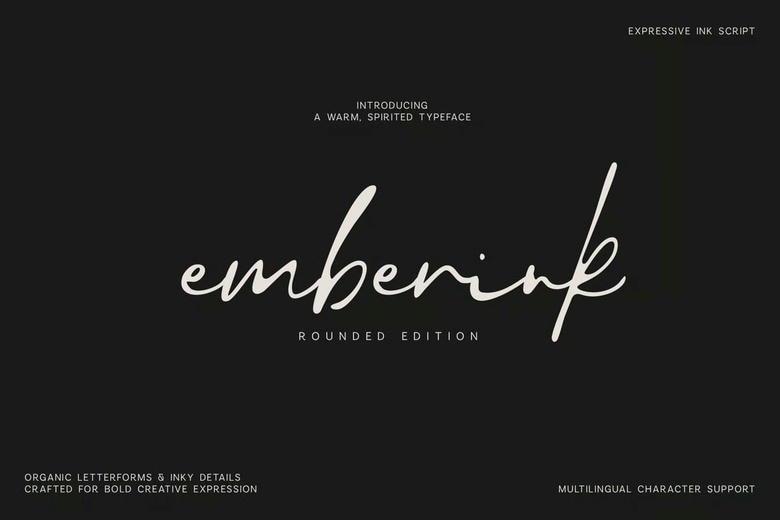
Emberink Font
Emberink Rounded is a handwritten script font with smooth edges and natural shapes, creating a warm and modern look. Its rounded strokes add a stylish touch to any project.
This font works well for signature logos, personal branding, product packaging, labels, posters, headlines, magazine layouts, invitations, event stationery, social media graphics, promotions, quotes, book covers, album covers, and fashion branding.
Emberink Rounded Handwritten Script Font